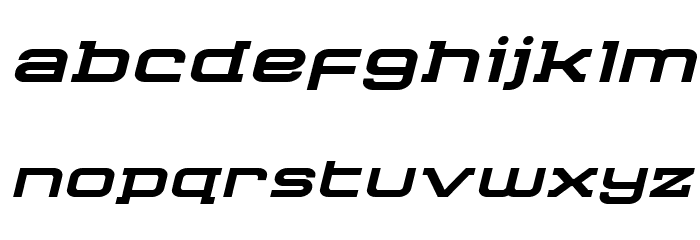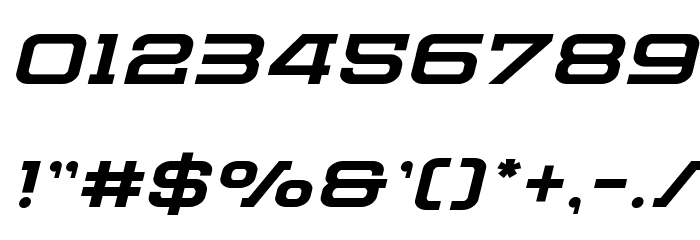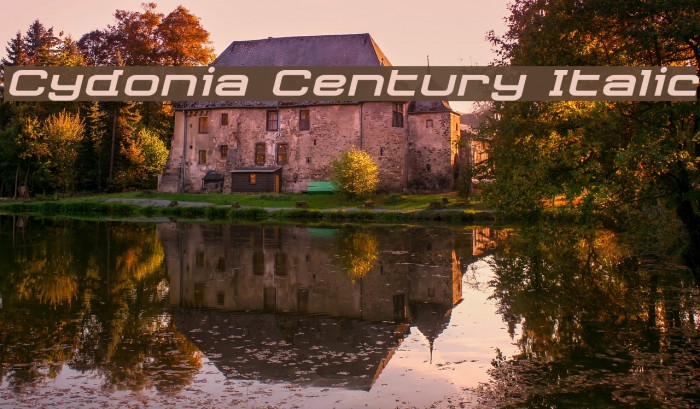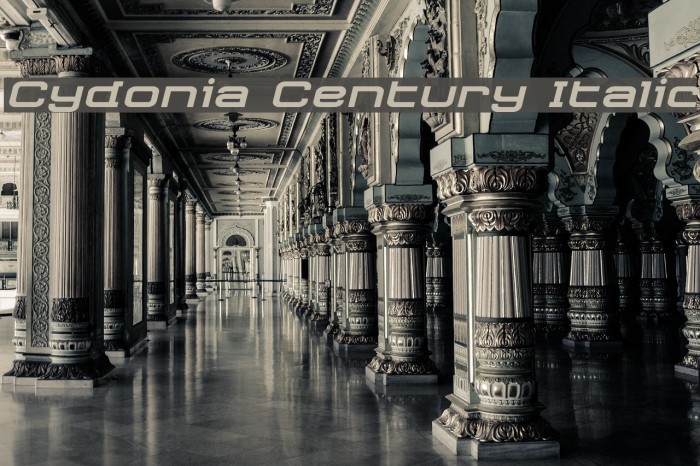
Cydonia Century Italic Font
This font features a sleek, italicized design with a futuristic and dynamic appearance. The characters are slightly slanted, giving a sense of motion and speed. The uppercase letters have a distinct geometric style, with sharp angles and clean lines, while the lowercase letters maintain a consistent flow with rounded edges. The numerals are bold and easily readable, complementing the overall style. Special characters are well-integrated, maintaining the font's modern aesthetic. This font is ideal for projects that require a contemporary and energetic look.
A sleek, italicized font with a futuristic and dynamic style.
- Proposed Projects: Ideal for technology branding, sports team logos, modern advertising, and sci-fi themed designs.